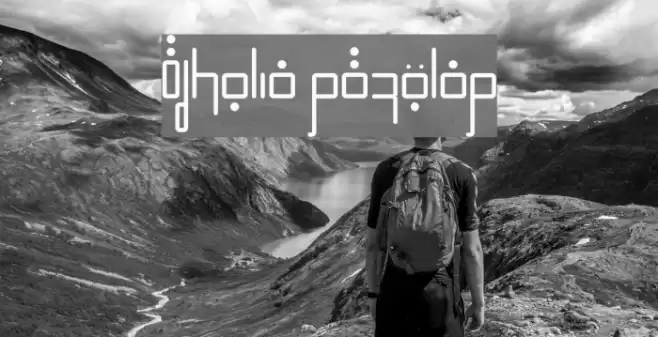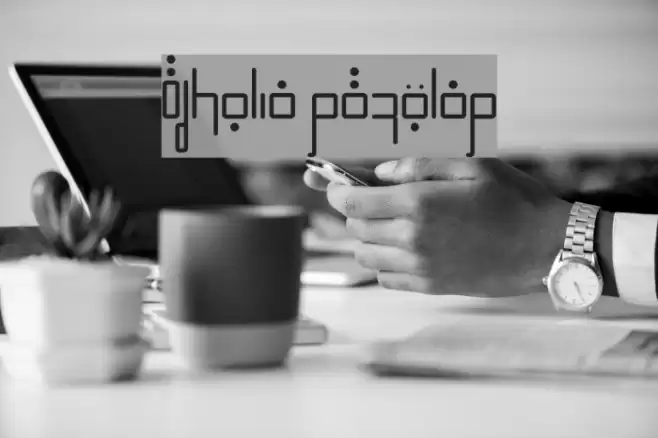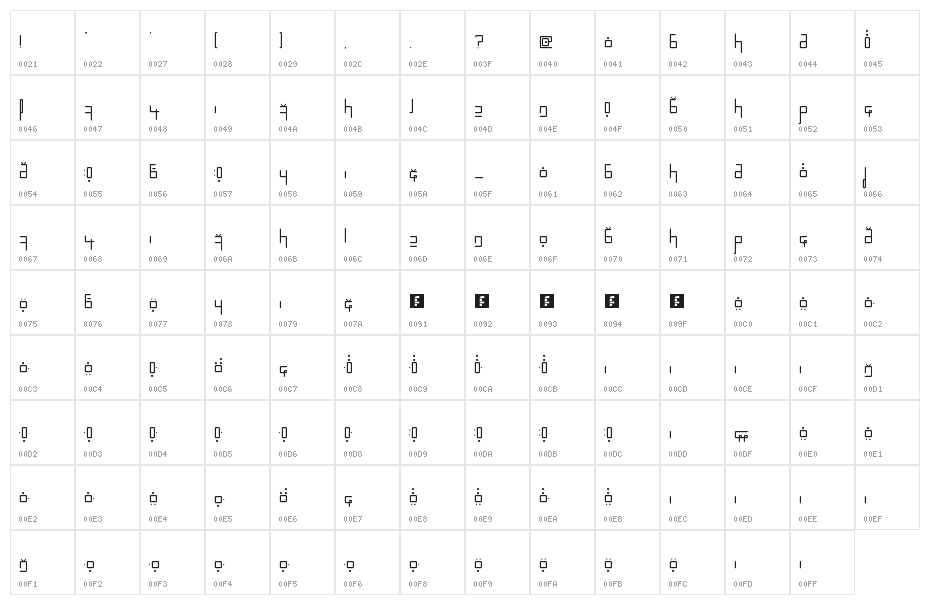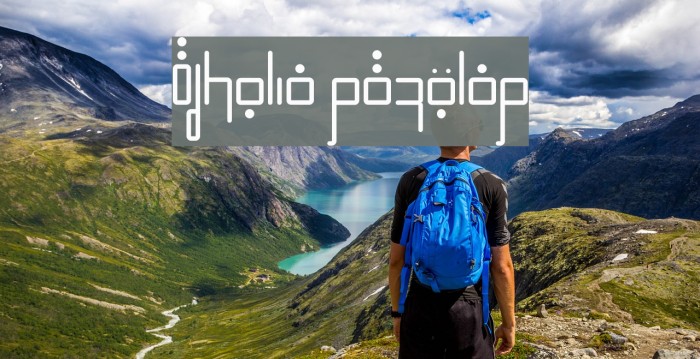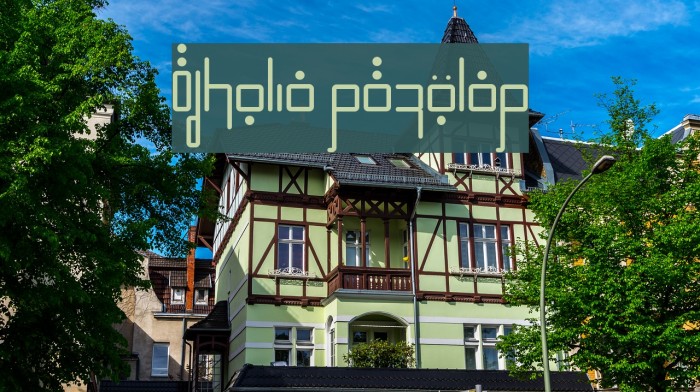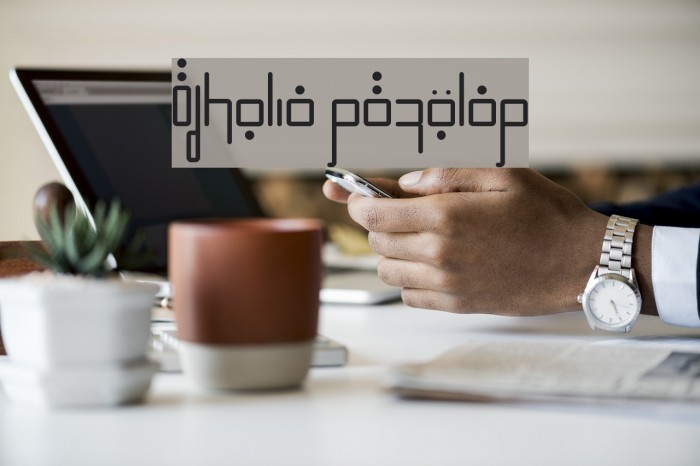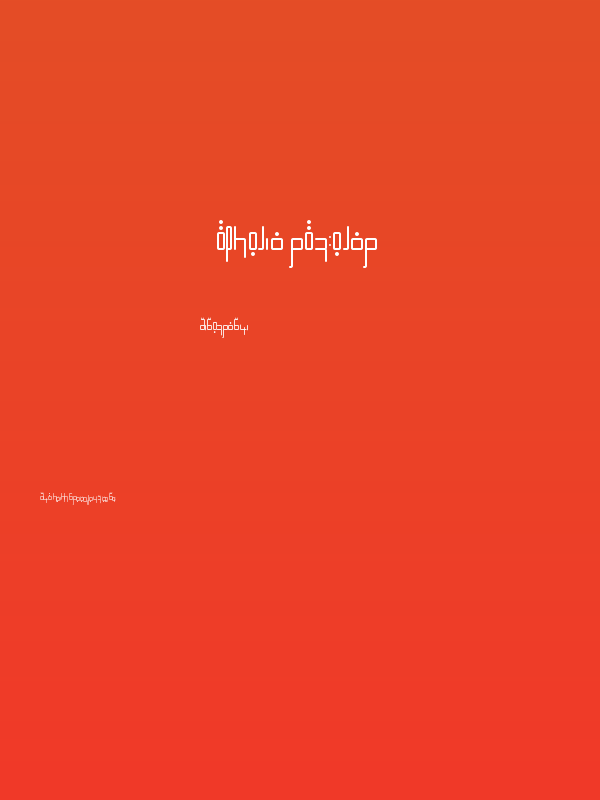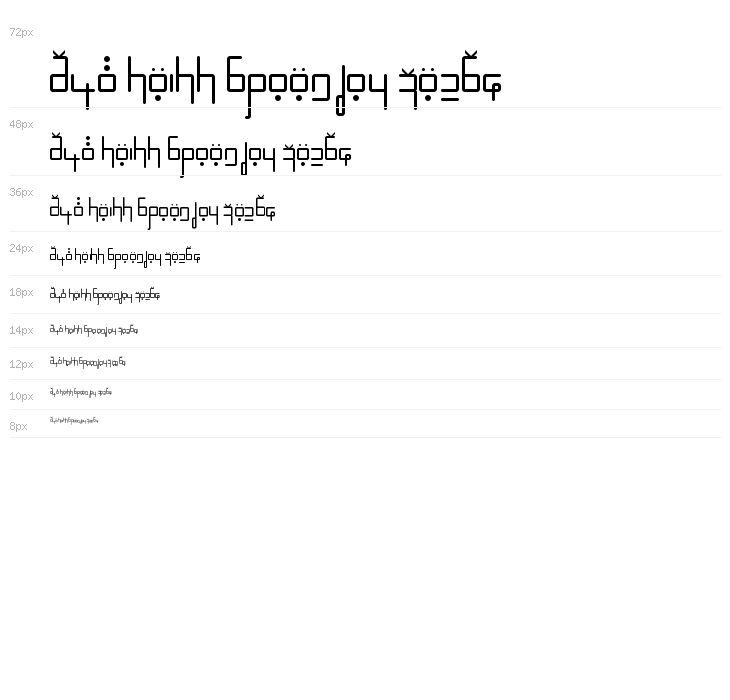
Efkolia Regular Font
Efkolia Regular Description
This font features a unique and futuristic design with geometric shapes and sharp angles. The characters are constructed with a combination of straight lines and circular elements, giving it a digital and modern appearance. The uppercase and lowercase letters maintain a consistent style, with a focus on symmetry and balance. The numbers and special characters are designed to match the overall aesthetic, making it suitable for creative and tech-oriented projects. The font's distinct style makes it stand out, ideal for headlines and display purposes.
A futuristic, geometric font with sharp angles and circular elements from Uncategorized fonts.
- Font: Efkolia Regular
- Proposed Projects: Ideal for tech branding, sci-fi posters, video game interfaces, and modern art projects.
- Overall Style: Futuristic